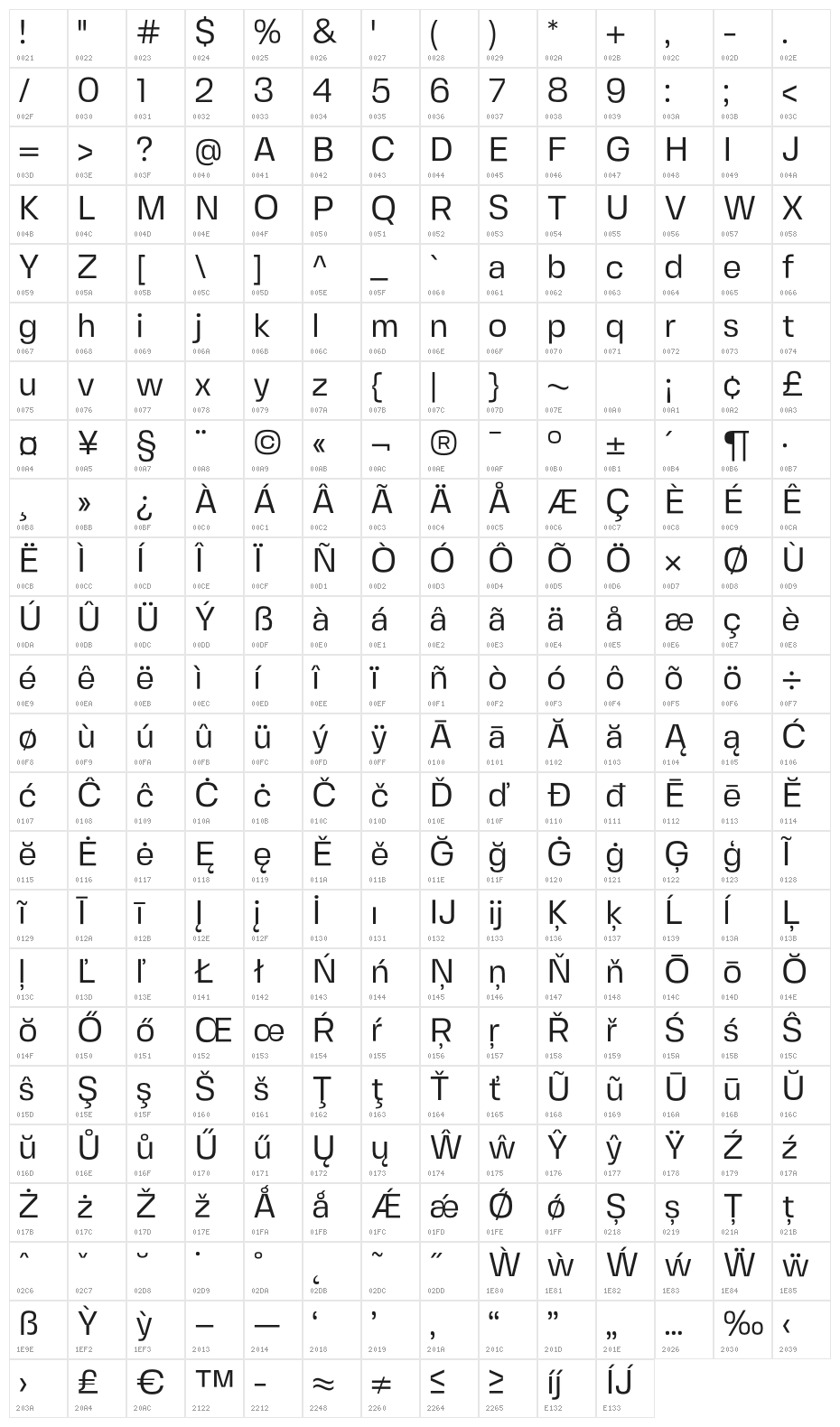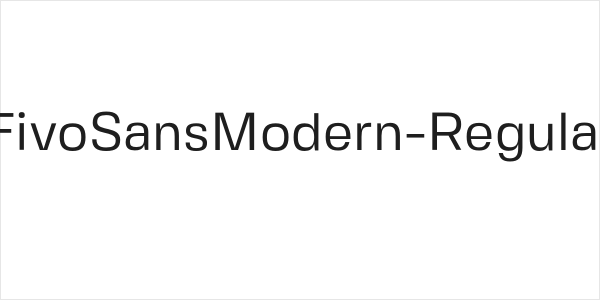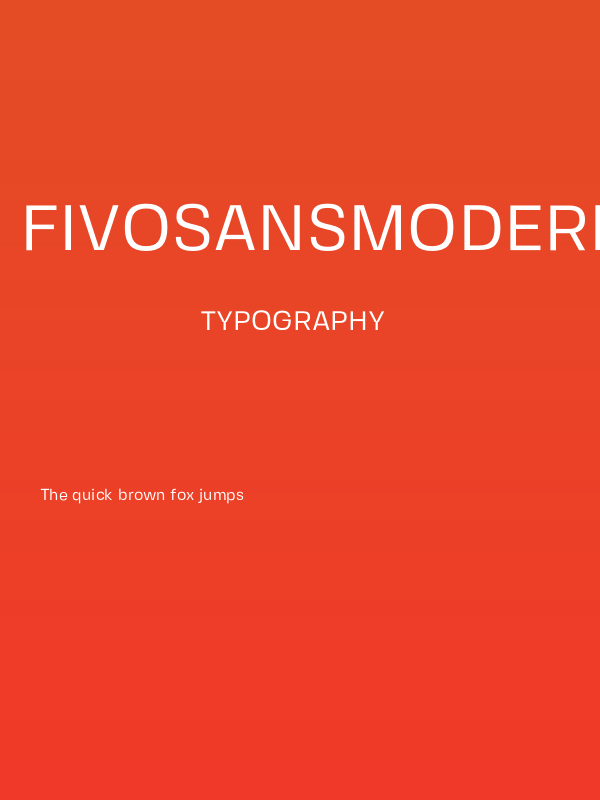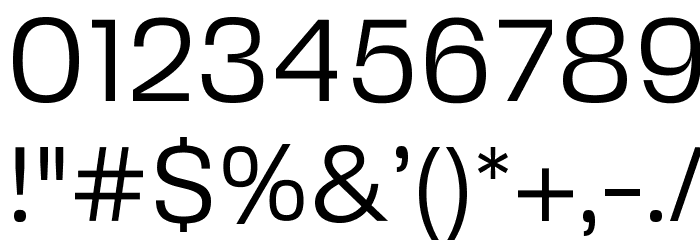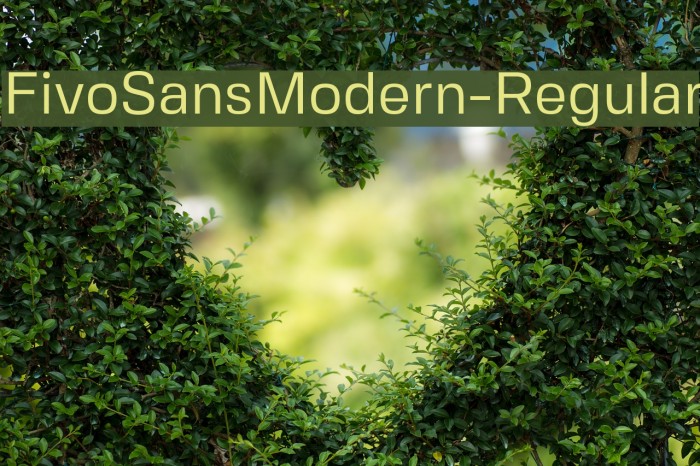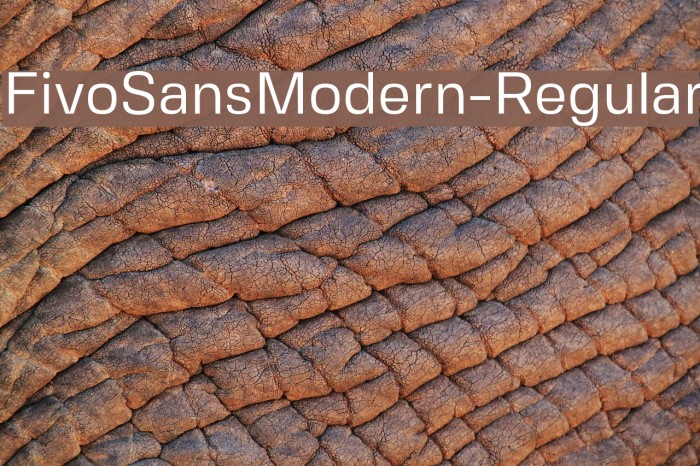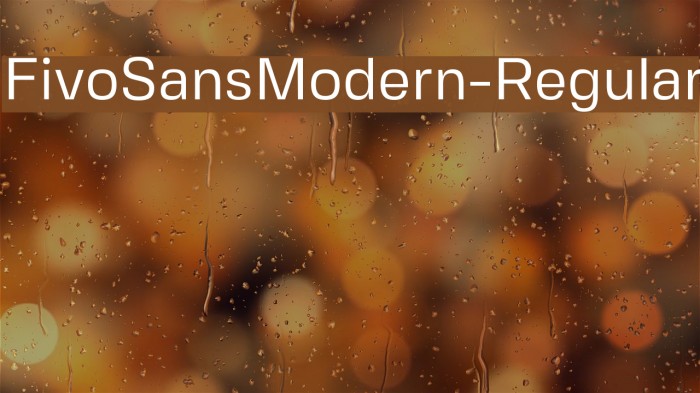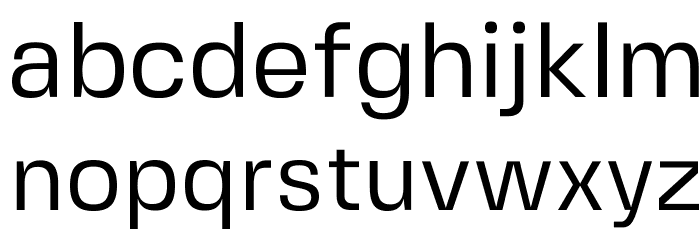
FivoSansModern-Regular Font
FivoSansModern-Regular Description
This font exhibits a clean and modern sans-serif style, characterized by its geometric shapes and uniform stroke widths. The uppercase letters are bold and assertive, while the lowercase letters maintain a consistent and harmonious appearance. The numerals are clear and easily distinguishable, making them suitable for both digital and print formats. Special characters are well-defined, enhancing the font's versatility. The overall design is minimalistic, with a focus on readability and functionality, making it ideal for contemporary design projects.